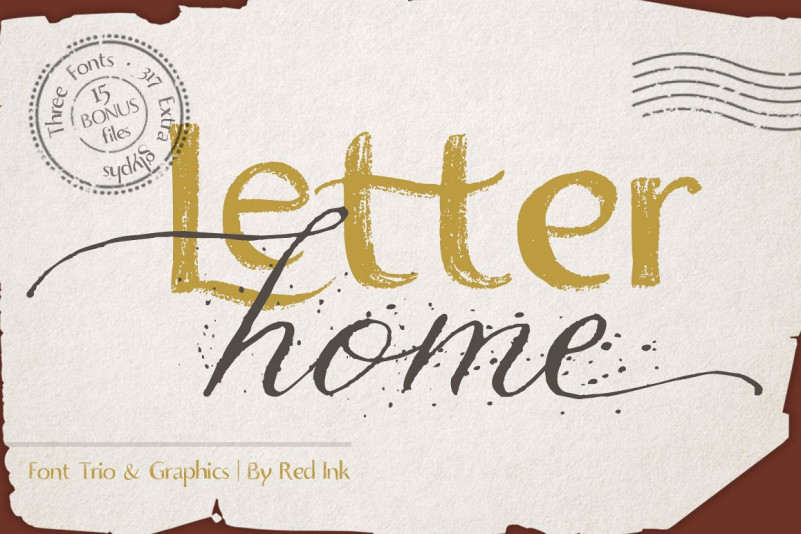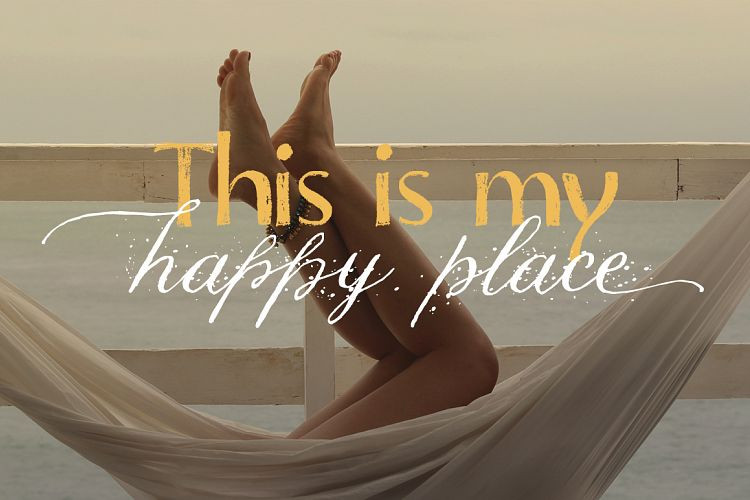
Letter Home Font
Letter Home is a beautiful hand drawn font collection of two Script fonts and Sans Serif font. Modern, expressive; perfectly combined typographic harmony is perfect for posters, greeting cards, t-shits, branding materials, quotes and any other amazing projects you are working on.